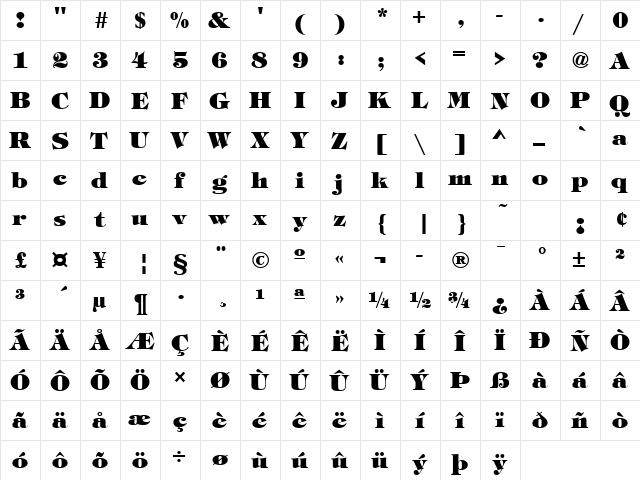
TiffanyLH Bold Font Preview
TiffanyLH Bold
Design Context for TiffanyLH Typeface
TiffanyLH offers clean, dependable letterforms without strong stylistic allegiance, making it a practical choice for designers who need flexibility. The heavy weight commands attention and anchors typographic hierarchies.